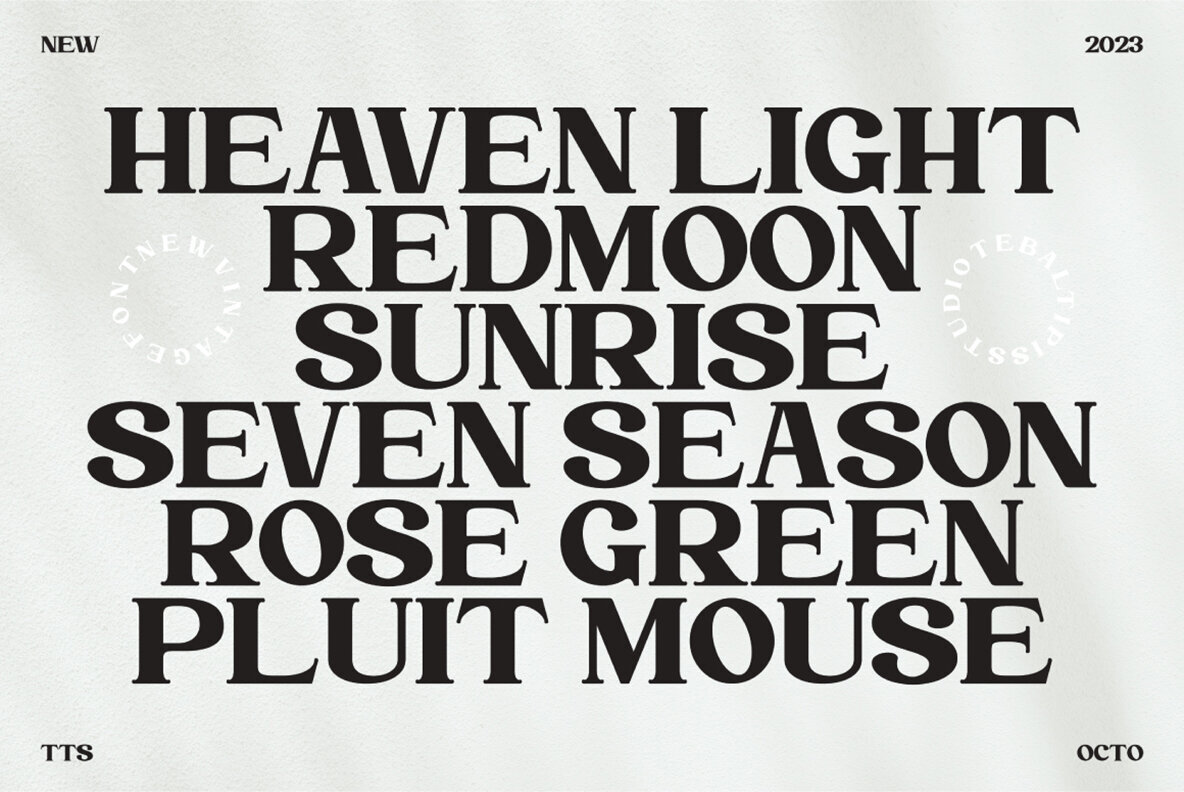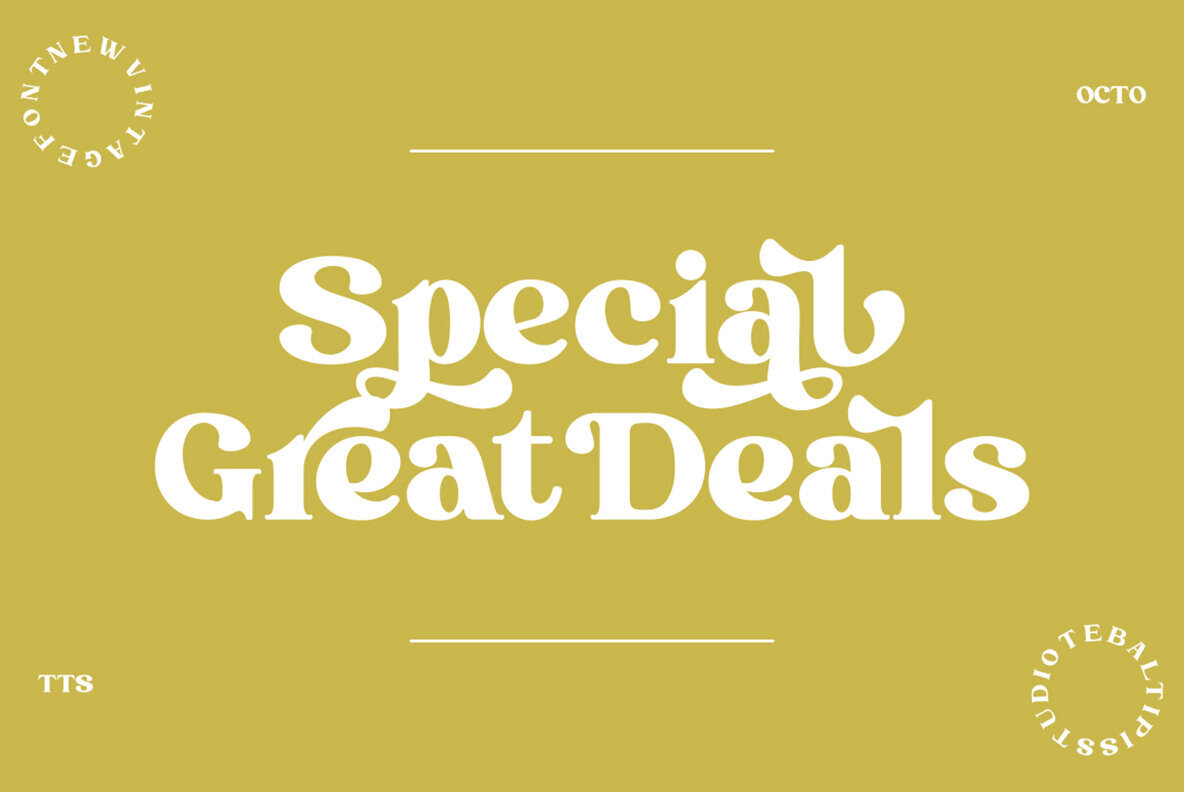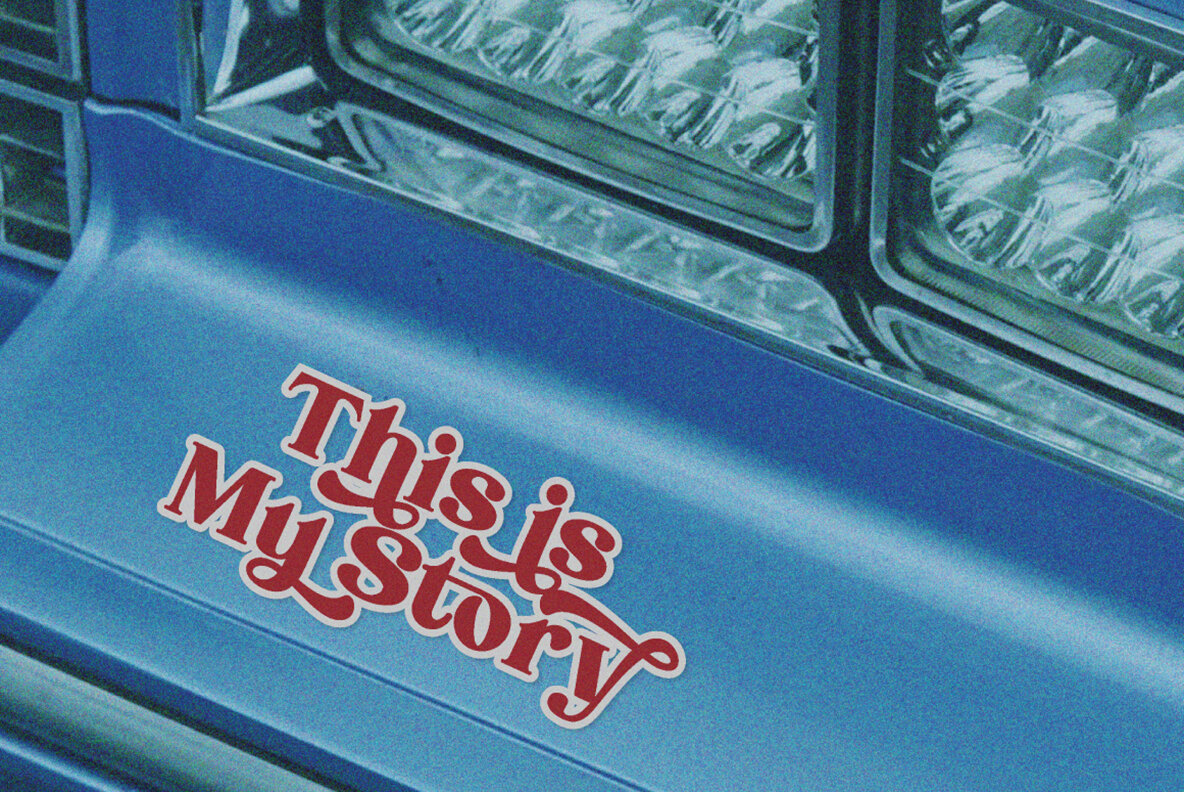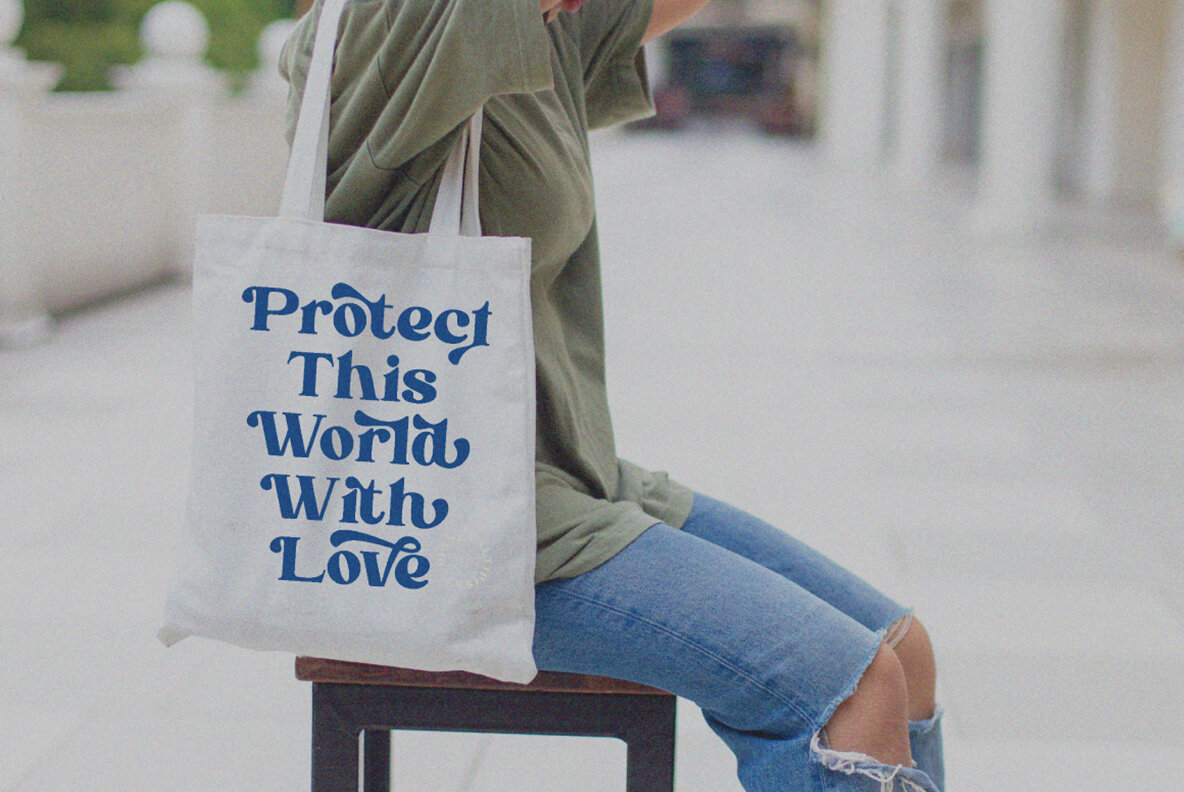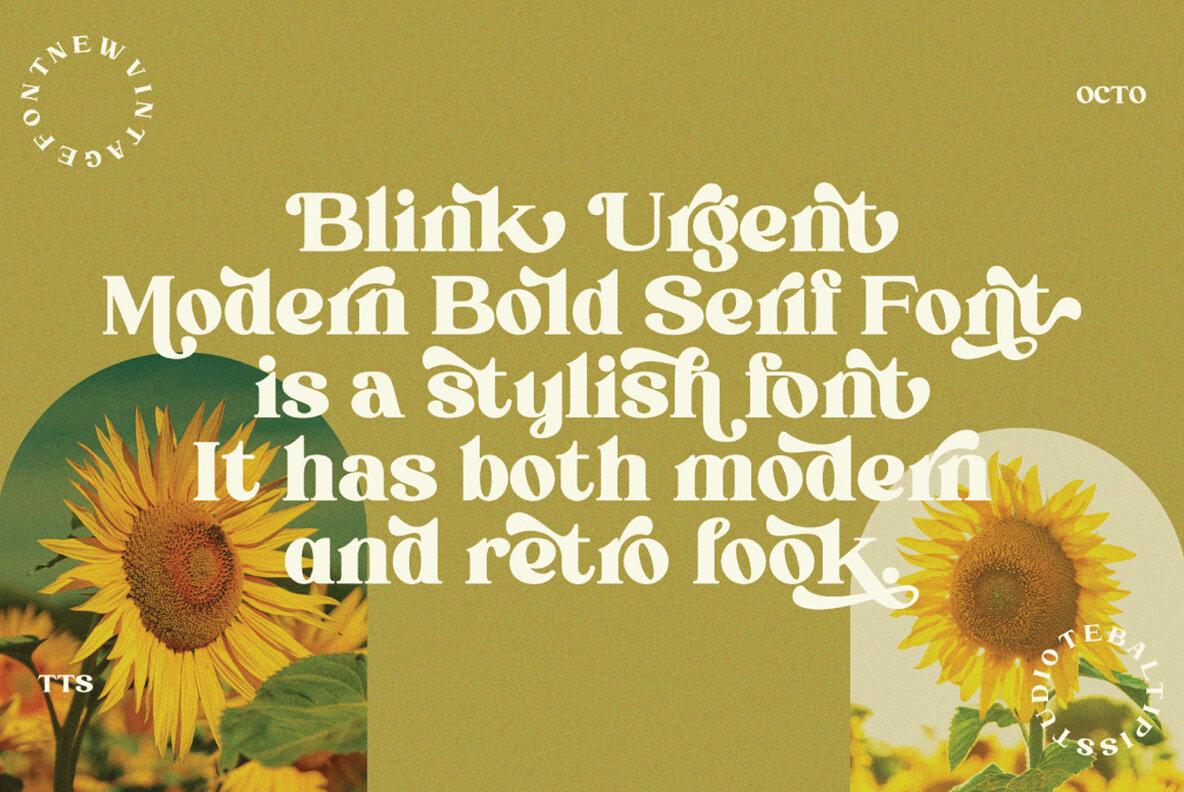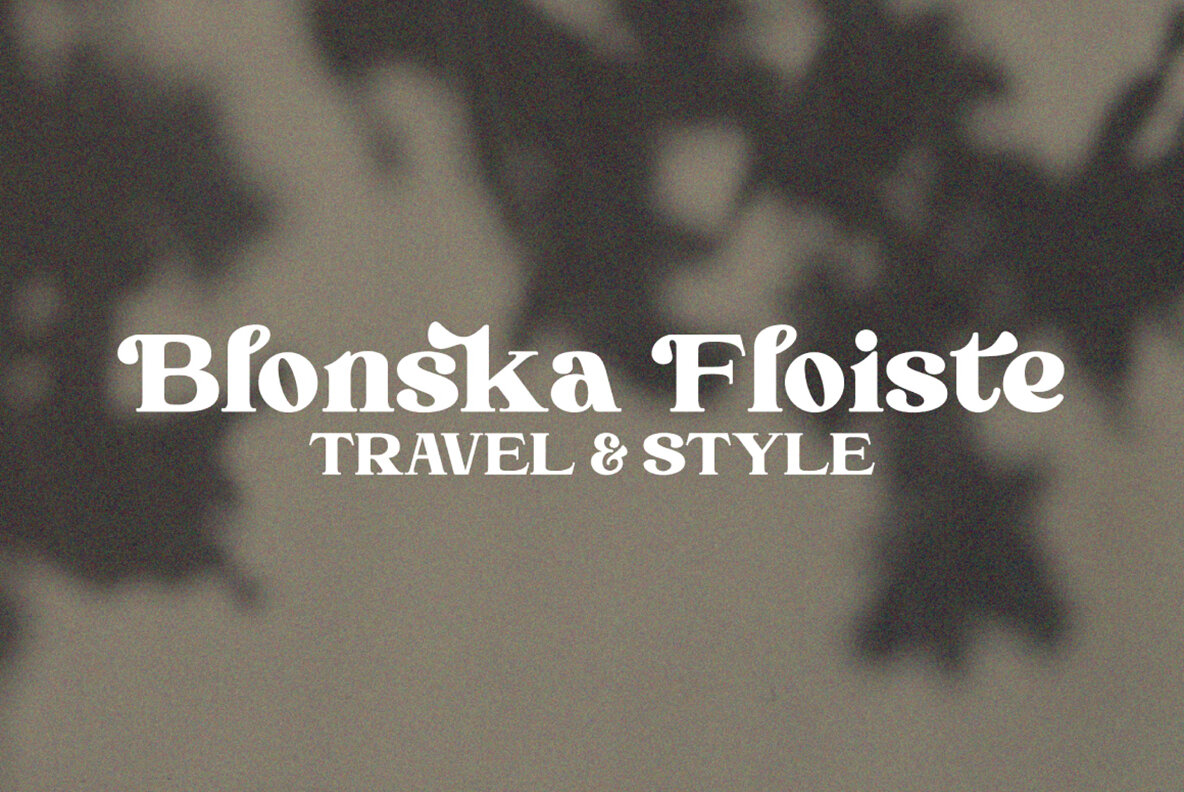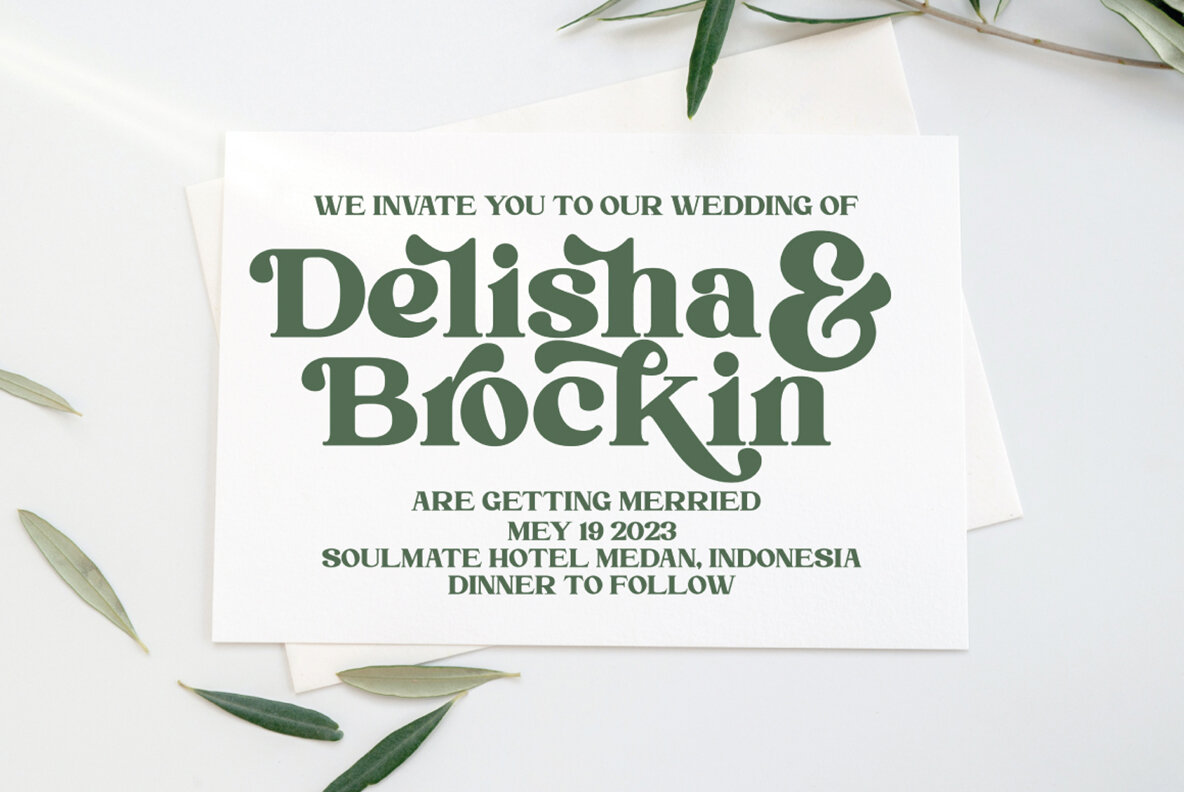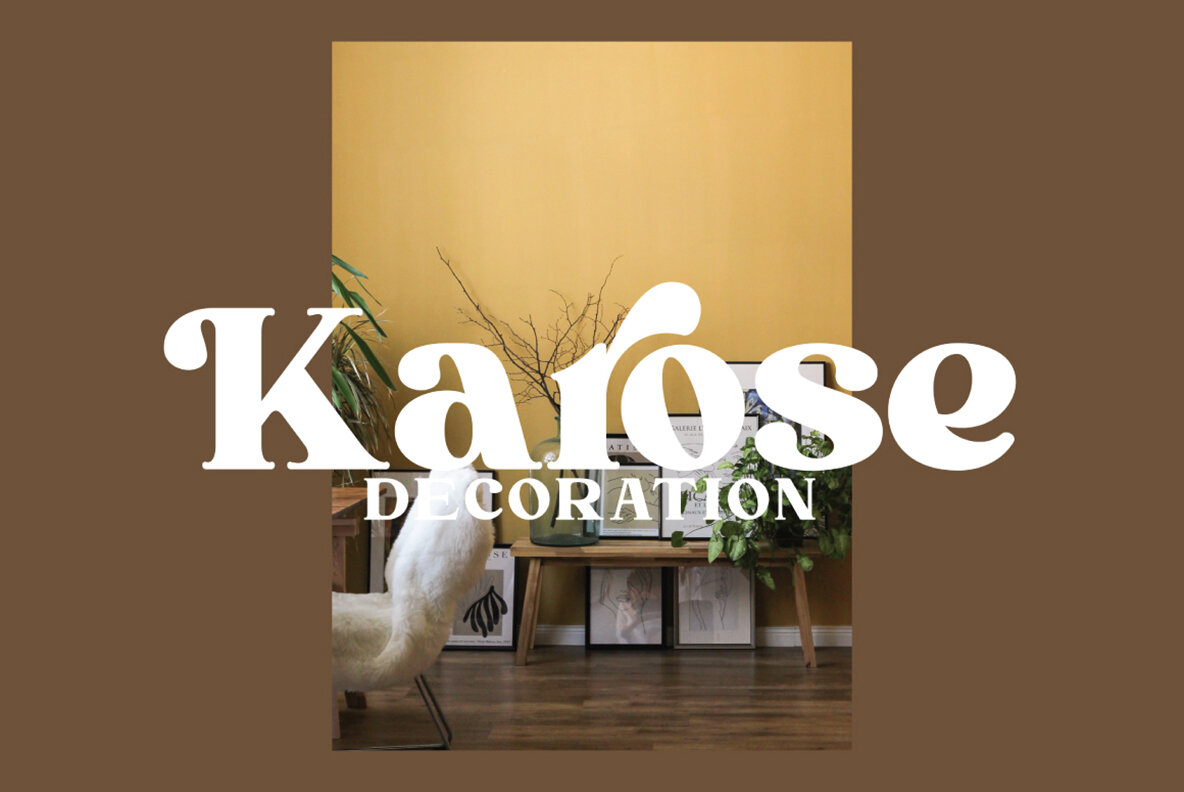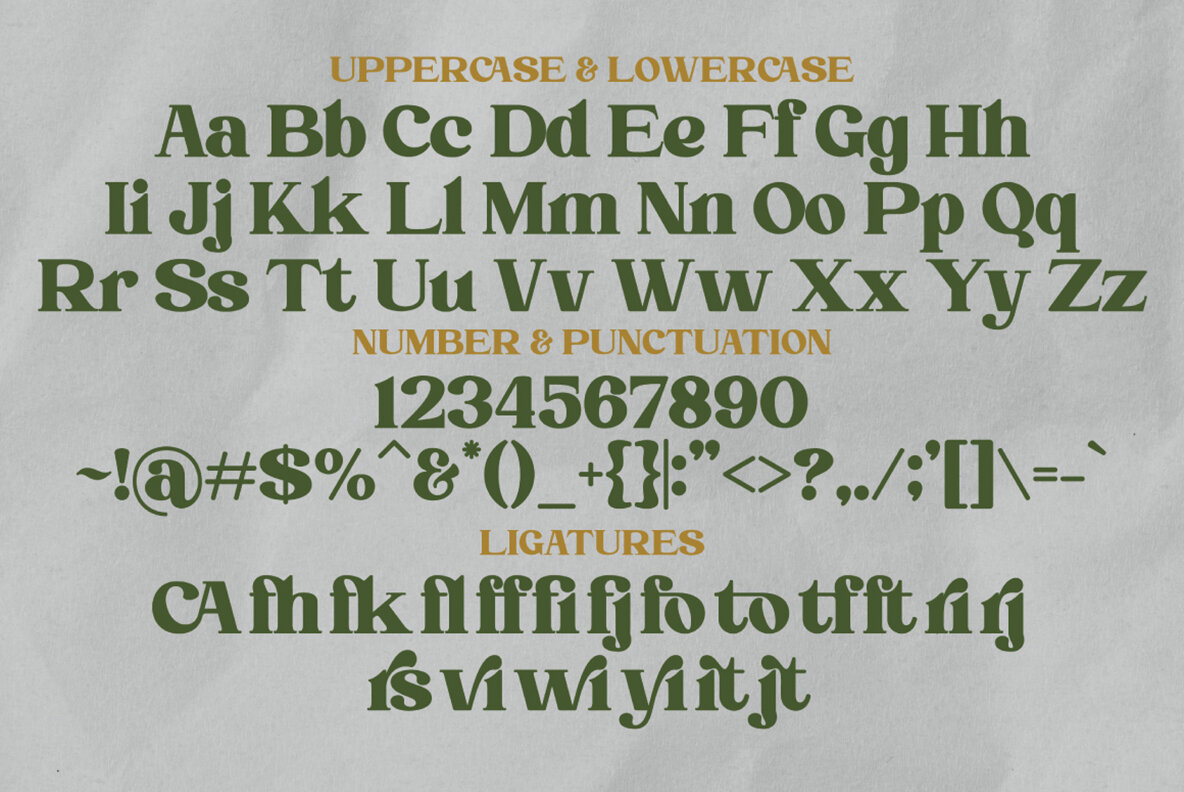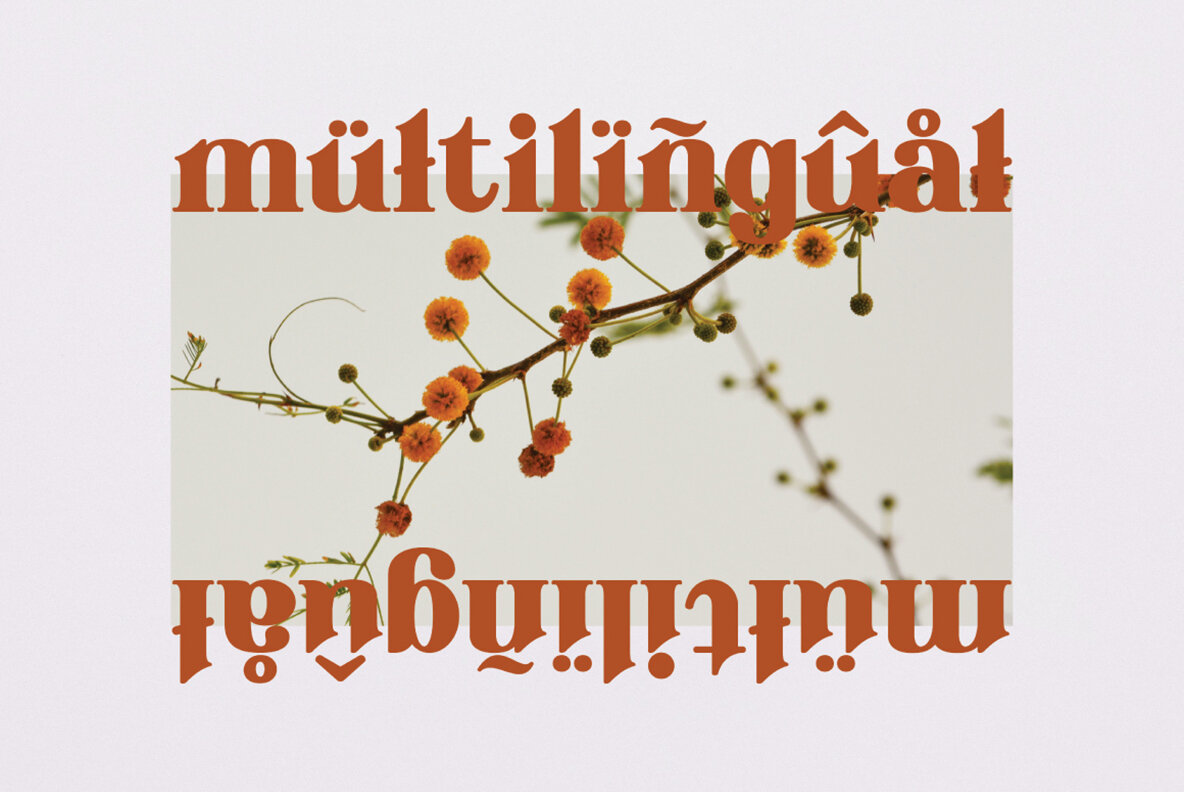
Blink Urgent Font
Blink Urgent Display
Blink Urgent is a chic and bold serif font that combines modern and retro aesthetics. This stylish typeface is perfect for a range of creative projects, offering the ideal solution for crafting striking logos, captivating quotes, and engaging blog posts. Its versatile appeal extends to branding endeavors, magazine visuals, and even wedding invitations, providing a unique touch to each design.
The font features distinctive letterforms, offering a selection of alternatives and ligatures for enhanced customization. It ensures compatibility across both PC and Mac platforms, with straightforward installation processes. Blink Urgent is readily accessible in popular design applications like Adobe Illustrator, Adobe Photoshop, and Microsoft Word. No additional software is needed to unlock its full potential, making it an easy yet powerful choice for designers seeking to elevate their work.